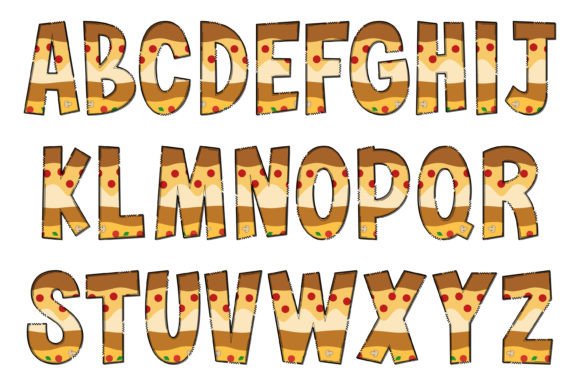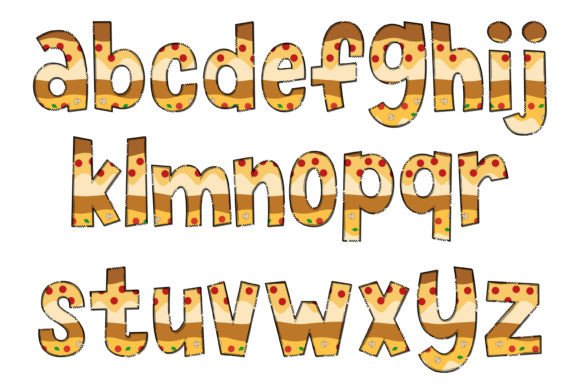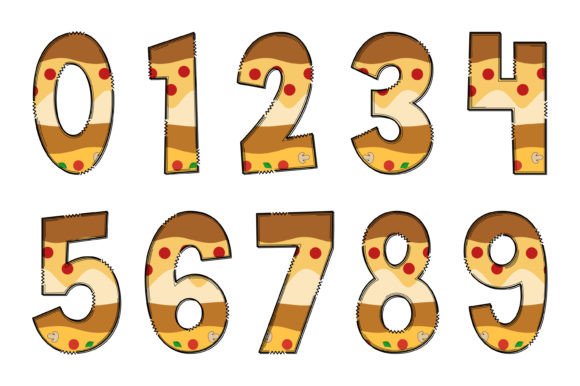
Introducing Cheesy Pizza Font: The Perfect Addition to Your Playful Designs
Are you a designer or crafter looking for a font that can add a playful touch to your creations? Look no further than Cheesy Pizza Font! This fun and whimsical font is perfect for designs that aim to convey a lighthearted or artistic feel, such as children’s books, posters, invitations, greeting cards, and more.
The Versatility of Cheesy Pizza Font
Cheesy Pizza Font can be used in a wide range of designs, from digital to print. Its playful and artistic vibe makes it an excellent choice for:
- Children’s books: Cheesy Pizza Font is ideal for kids’ books, as it is whimsical, colorful, and easy to read, creating an engaging reading experience for young audiences.
- Posters: Add a pop of fun to your posters with Cheesy Pizza Font, perfect for promoting events, products, or services in a playful way.
- Invitations: Make your invitations stand out with Cheesy Pizza Font, great for birthday parties, baby showers, or other celebrations.
- Greeting cards: Add a personal touch to your greeting cards with Cheesy Pizza Font, perfect for birthdays, holidays, or get-well wishes.
Why Choose Cheesy Pizza Font?
So, what makes Cheesy Pizza Font so special? Here are just a few reasons why designers and crafters love this font:
- Playful and whimsical: Cheesy Pizza Font has a fun and carefree vibe that’s perfect for designs that need to convey a lighthearted or artistic feel.
- Easy to read: Despite its playful nature, Cheesy Pizza Font is easy to read, making it perfect for body text or headlines.
- Versatile: Cheesy Pizza Font can be used in a wide range of designs, from digital to print, and can be paired with other fonts to create a unique look.
- Colorful: Cheesy Pizza Font comes in a range of colors, making it easy to match your brand or design aesthetic.
Tips for Using Cheesy Pizza Font
Here are a few tips for getting the most out of Cheesy Pizza Font:
- Pair with other fonts: Combine Cheesy Pizza Font with other fonts to create a unique and visually appealing design.
- Experiment with colors: Try out different colors to find the perfect match for your brand or design aesthetic.
- Use it sparingly: While Cheesy Pizza Font is playful and fun, it can be overwhelming if used too much. Use it sparingly to add a pop of personality to your design.
Cheesy Pizza Font is a fun and versatile font that’s perfect for designers and crafters looking to add a playful touch to their creations. With its whimsical and artistic vibe, ease of use, and versatility, Cheesy Pizza Font is an excellent choice for a wide range of designs. So why not give it a try and see how it can elevate your designs?